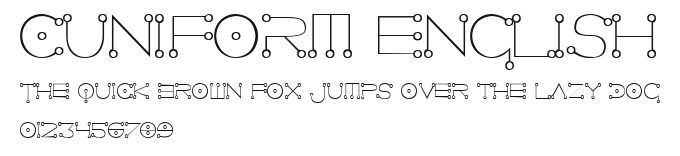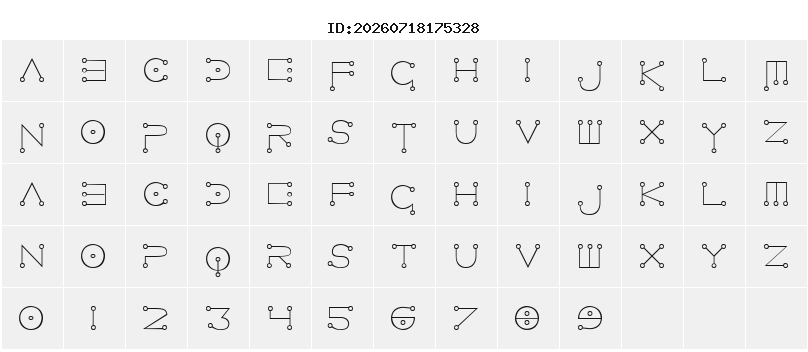
Cuniform English.ttf is a modern, elegant sans-serif font designed for ultimate readability and visual harmony. Perfect for branding, headlines, web design, and print materials.